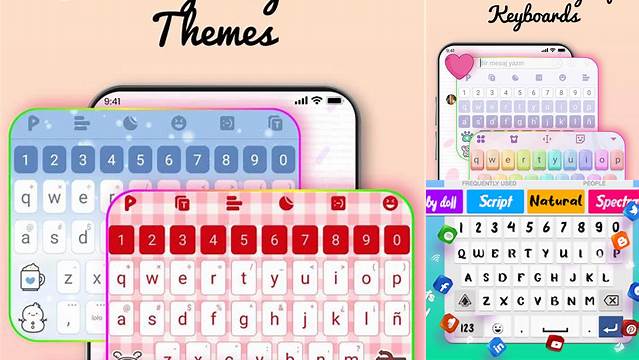
Fonts Keyboard APK: Stylish Texting For Android
Fonts Keyboard APK: Your Gateway to Text Customization
Hey guys, let's dive into the awesome world of the Fonts Keyboard APK! This handy little app is your secret weapon for spicing up your text game on your Android device. Forget the boring, default fonts – with a Fonts Keyboard APK, you can transform your everyday messages, social media posts, and even your work emails into eye-catching masterpieces. This article will walk you through everything you need to know, from what a Fonts Keyboard APK is to how to download and use it safely, and even some cool tips and tricks to make your texts stand out. This app is designed to integrate seamlessly with your existing keyboard, giving you a vast library of fonts to choose from. Imagine effortlessly switching between sleek, modern fonts, playful, bubbly ones, or even elegant, handwritten styles. The possibilities are endless, and all at your fingertips. The appeal of a Fonts Keyboard APK lies in its simplicity and accessibility. You don't need to be a tech whiz to start using it. The installation process is usually straightforward, and the user interface is designed to be intuitive. Within minutes, you can be experimenting with different fonts and styles, adding a personal touch to every message you send. With a Fonts Keyboard APK, you're not just changing the appearance of your text; you're expressing your personality and creativity in a new and exciting way. It's a simple yet powerful tool that can significantly enhance your online communication, making it more engaging and enjoyable for both you and the people you connect with. And with the ability to use these fonts in almost any app, from messaging apps to social media platforms, your creative options are truly limitless. So, get ready to elevate your texting game and explore the world of font customization! Ready to become the font master? Let's get started!
Cool Fonts Keyboard APK: Exploring Unique Text Styles
So, what exactly makes a Fonts Keyboard APK so cool? It's all about the unique text styles, my friends! These apps offer a diverse range of fonts, from bold and italic to quirky and artistic, allowing you to express yourself in ways you never thought possible. Gone are the days of plain, boring text; with a fonts keyboard, you can add a touch of personality and flair to every word you type. Think about it: you can use elegant, cursive fonts for special occasions, bold, attention-grabbing fonts for important announcements, or fun, playful fonts to add a bit of whimsy to your daily chats. The options are as varied as your imagination! The best thing is, with these apps, you're not limited to a handful of fonts; you often have access to hundreds, if not thousands, of different styles. You can find fonts that mimic handwriting, fonts that look like they came straight out of a vintage typewriter, or even fonts inspired by popular movies and games. This variety ensures that you'll always find the perfect font to match your mood, your message, or the occasion. Moreover, many Fonts Keyboard APKs include extra features, such as the ability to create custom text styles or use special symbols and emojis to further enhance your text. Some even allow you to preview your text in real-time, so you can see exactly how it will look before you send it. This level of customization is what makes these apps so appealing, giving you complete control over your text and empowering you to make it truly your own. In a world where visual communication is key, a Fonts Keyboard APK is a valuable tool for setting yourself apart. It's a simple yet effective way to grab attention, express your creativity, and make your messages more memorable. So, get ready to explore the endless possibilities and discover the power of unique text styles!
Best Fonts Keyboard APK: Top-Rated Apps to Elevate Your Texting
Want to know which Fonts Keyboard APKs are the cream of the crop? Look no further! The